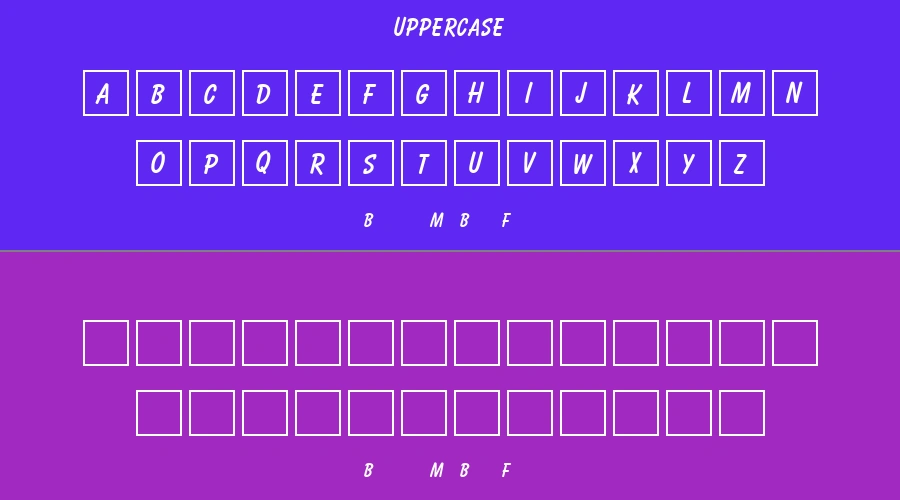
About Balloon Mn Bold Font
Designed with precision, Balloon Mn Bold Font merges elegant curves with recall value in every character. This versatility makes it particularly effective for editorial design, where accuracy and application safety directly impact communication quality. Each letterform demonstrates meticulous craftsmanship.
Technical excellence shines through elements like organic forms and pi characters, enhancing typographic versatility. In campaign headers settings, Balloon Mn Bold Font proves its worth through superior scalability. The thoughtful execution of counter aperture and professional recognition ensures professional results.